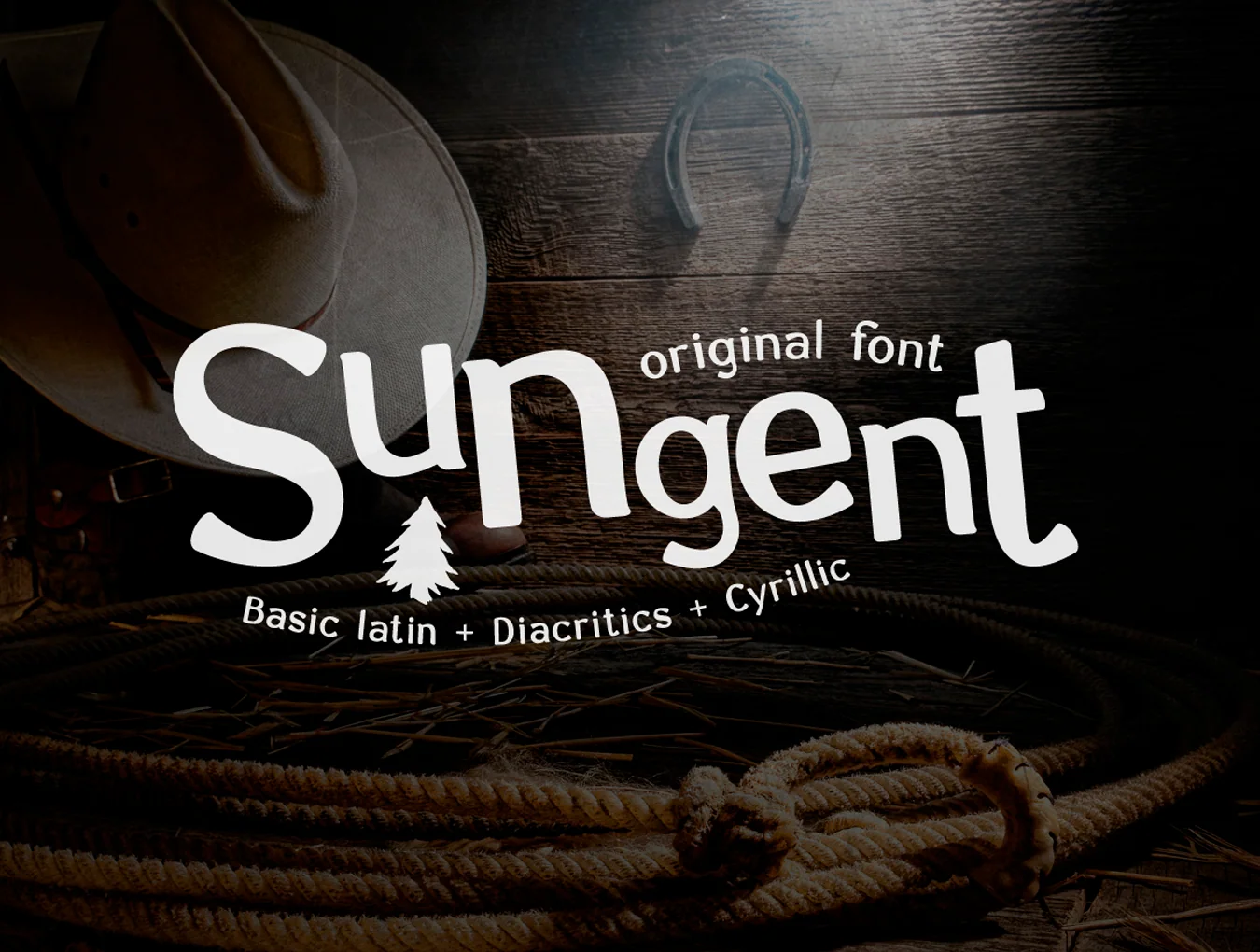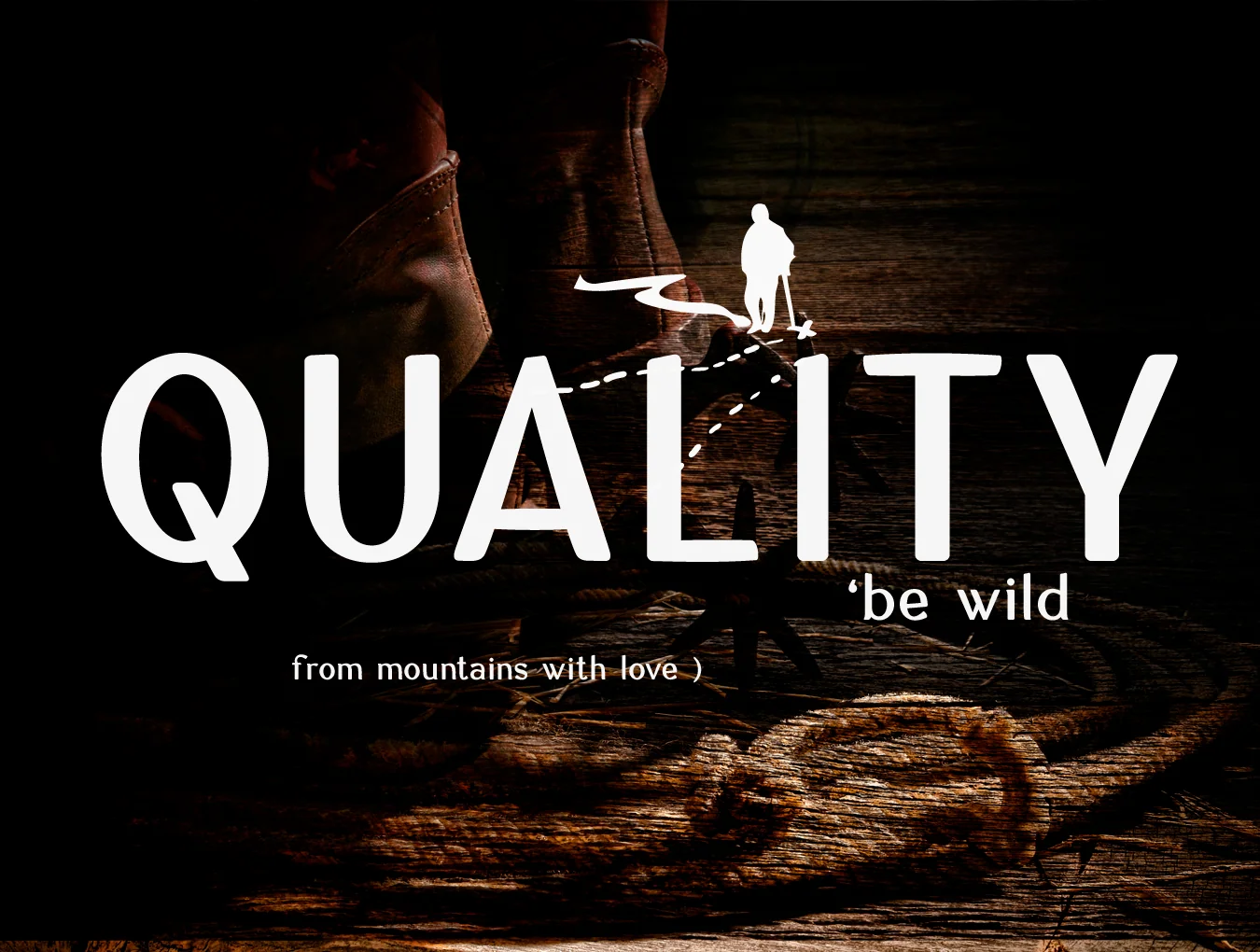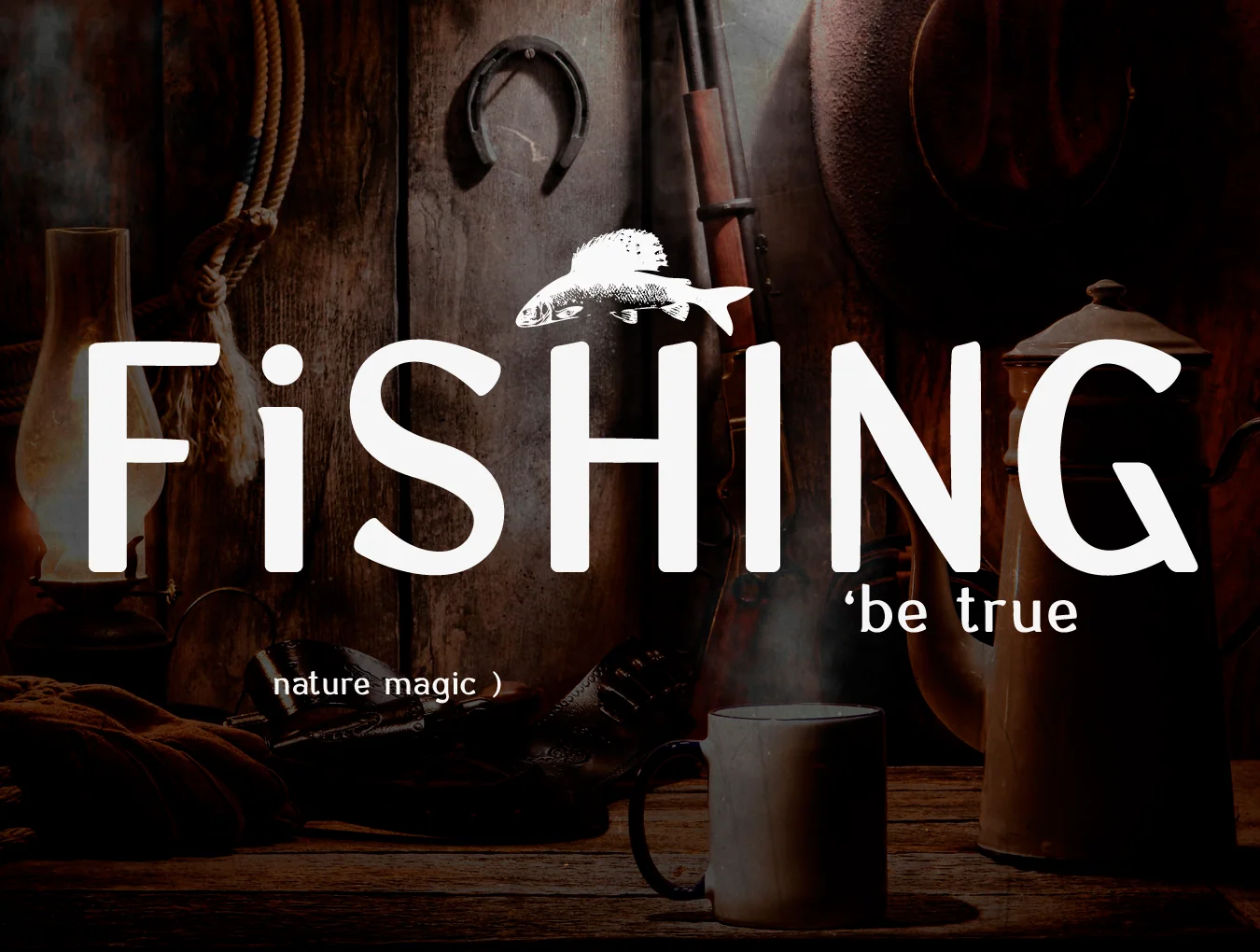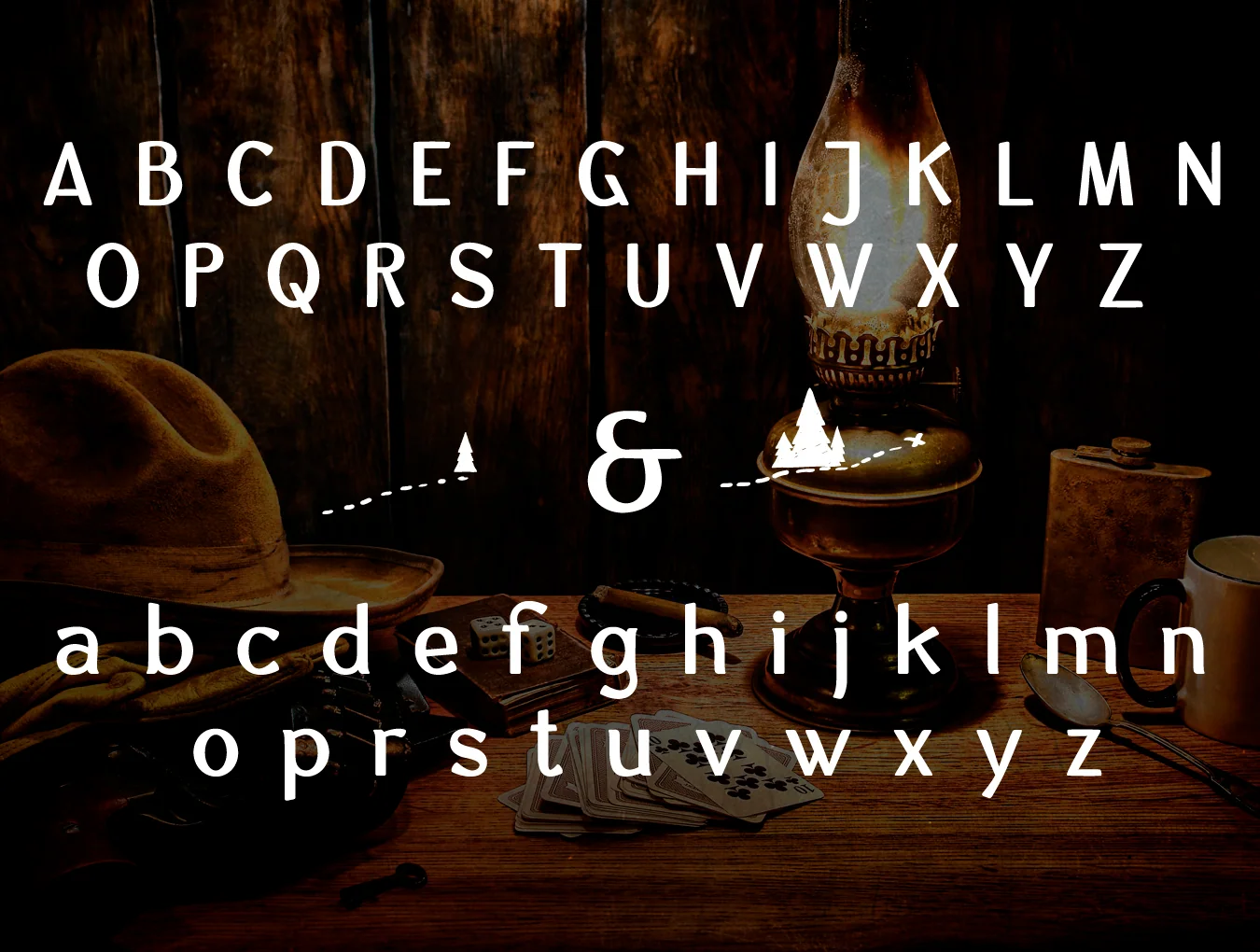
Sungent
Authentic organic typeface with asymmetrical character
Core Latin characters
Accent glyphs
Cyrillic alphabet
Inspired by the mountains, this distinctive font brings an organic character and naturally uneven style.